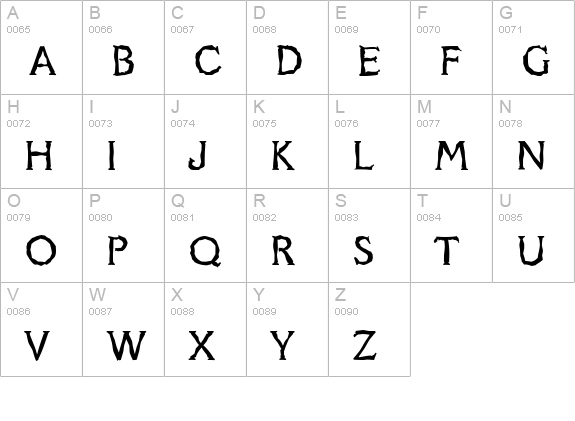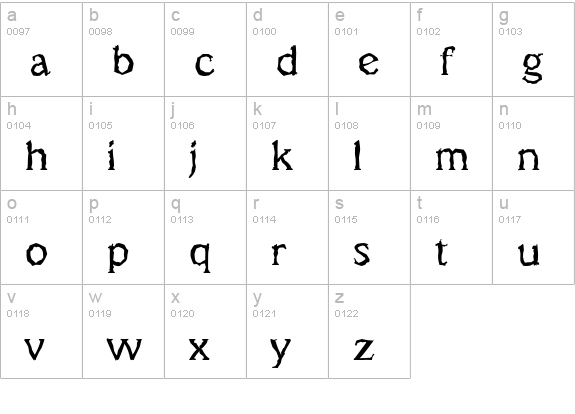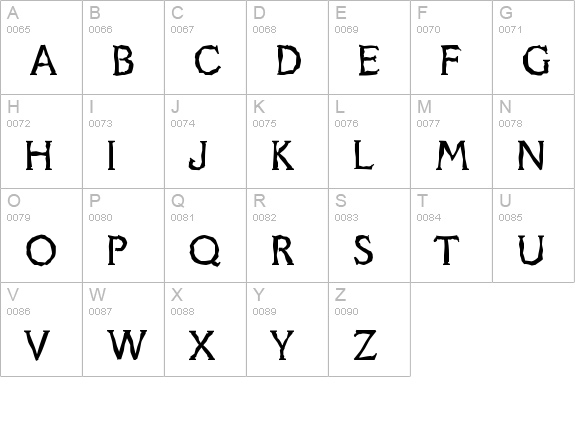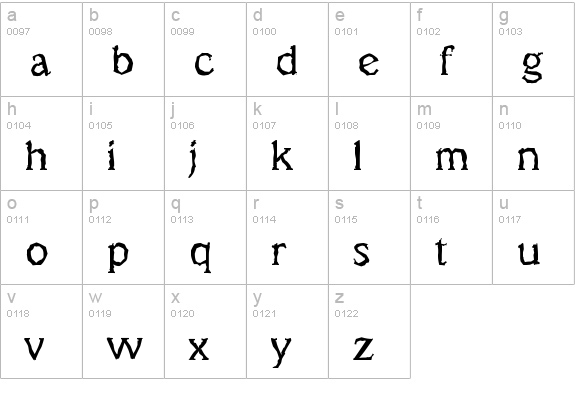
VeracruzRandom-Regular Font Details
VeracruzRandom-Regular is the standard, neutral variant in the VeracruzRandom typeface family \xE2\x80\x94 well suited to general body text, paragraphs, and standard typographic work.
VeracruzRandom-Regular font is a unique and artistic typeface that adds a touch of whimsy to any design project. With its playful and irregular letterforms, this font exudes character and charm. The hand-drawn style gives it a personal and homemade feel, perfect for adding a creative touch to invitations, posters, greeting cards, and more. What's even better is that VeracruzRandom-Regular font is completely free to download at FontsMarket.com. This means you can easily access this delightful font and use it in your projects without any cost. Don't miss the opportunity to enhance your designs with the quirky and fun VeracruzRandom-Regular font today!